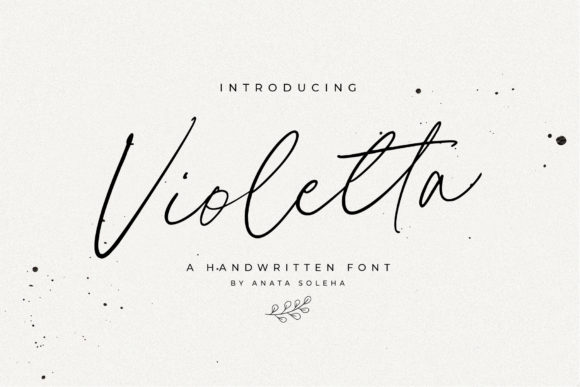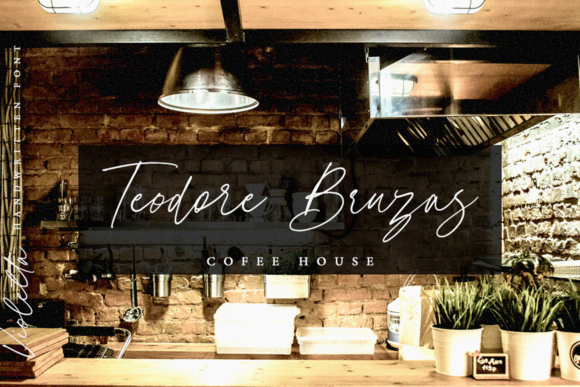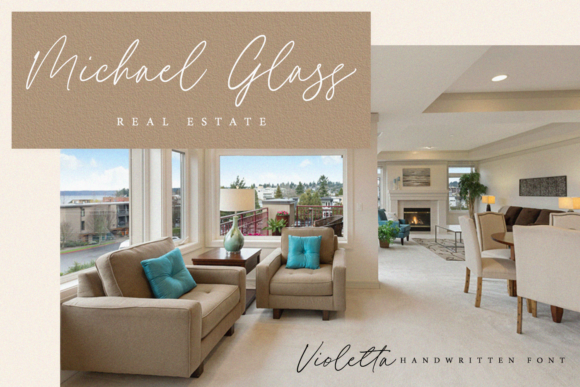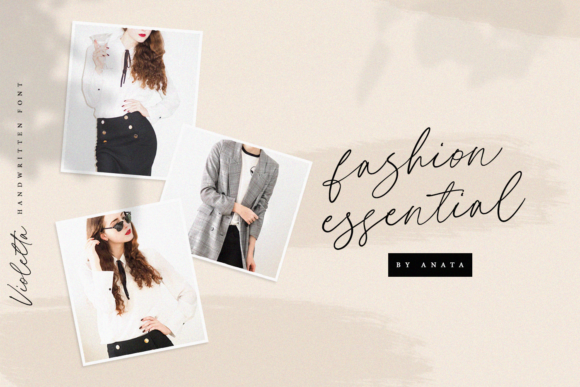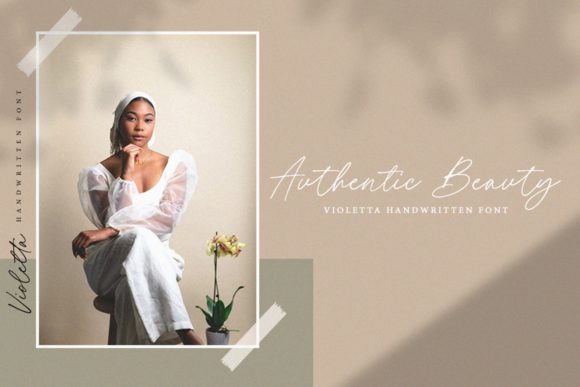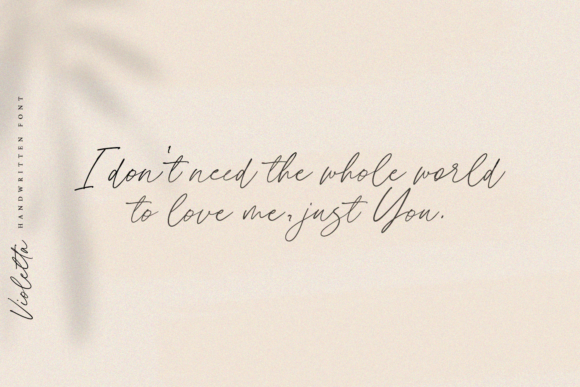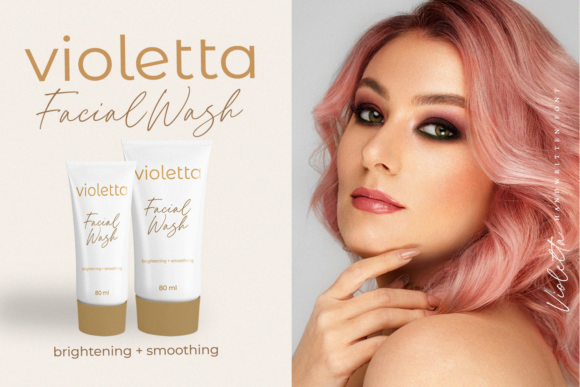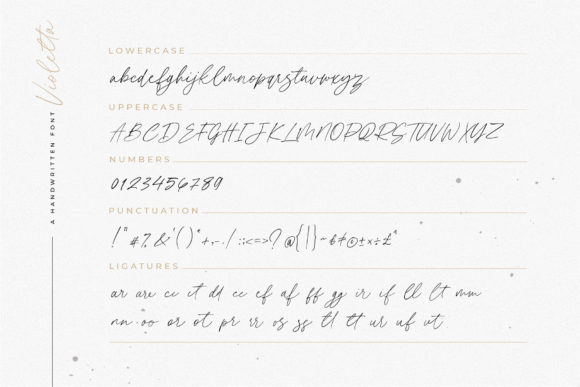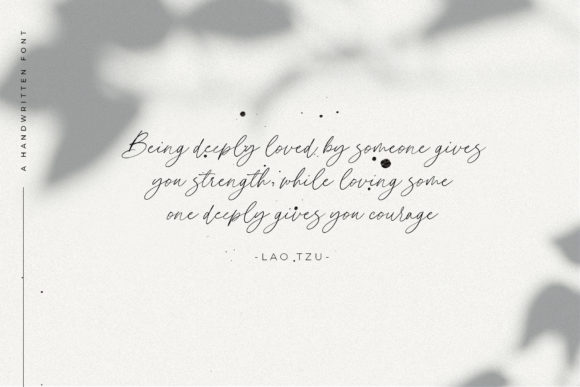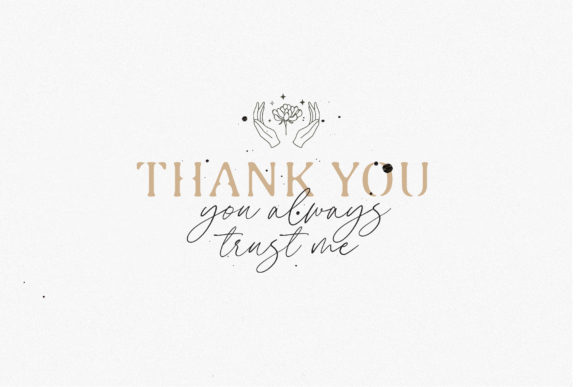
Violetta Font
About Violetta Font
Violetta is a flowing handwritten font that exudes elegance and charm. With its distinct and timeless style, it is perfect for adding a touch of sophistication to your favorite design projects. Whether you’re creating wedding invitations, branding materials, quotes, greeting cards, logos, or any other design that requires a handwritten touch, Violetta will elevate your designs and make them truly spectacular.
The graceful and flowing letterforms of Violetta create a sense of fluidity and movement. The delicate curves and smooth lines give the font a romantic and feminine quality, making it ideal for projects that require an elegant and refined look. Whether you’re designing for a wedding, a special event, or a luxury brand, Violetta will bring a touch of class and beauty to your designs.
One of the notable features of Violetta is its versatility. It can be used for a wide range of projects and purposes, thanks to its adaptable style. From wedding invitations and thank you cards to quotes, logos, business cards, and more, Violetta will add a distinctive and timeless charm to your designs. Its versatility allows it to be used in both formal and casual contexts, making it suitable for a variety of creative ideas.
Violetta’s PUA encoding ensures that you can easily access all of its glyphs and swashes, allowing you to customize and personalize your designs effortlessly. This feature enables you to add decorative flourishes, unique ligatures, and stylish variations to your typography, giving your designs an extra level of creativity and flair.
Whether you’re creating designs for print or digital media, Violetta will captivate your audience and leave a lasting impression. Its flowing and elegant style draws attention and creates a sense of beauty and sophistication. It is a font that stands out and adds a touch of luxury to any design project.
In summary, Violetta is a flowing handwritten font that combines elegance, charm, and versatility. Its distinct and timeless style makes it ideal for various design projects, from wedding invitations to logos and more. With its PUA encoding, you can easily access all of its glyphs and swashes to customize your designs. Fall in love with Violetta and let it bring your creative ideas to life with its captivating and sophisticated aesthetic.